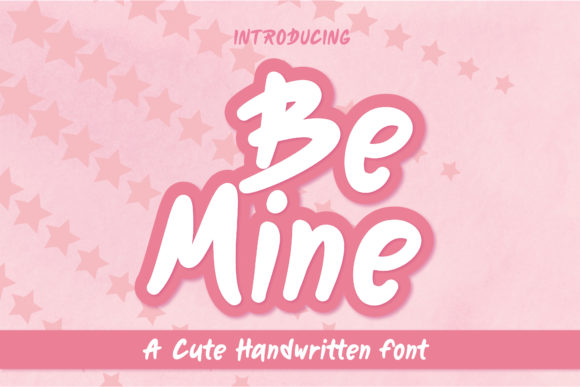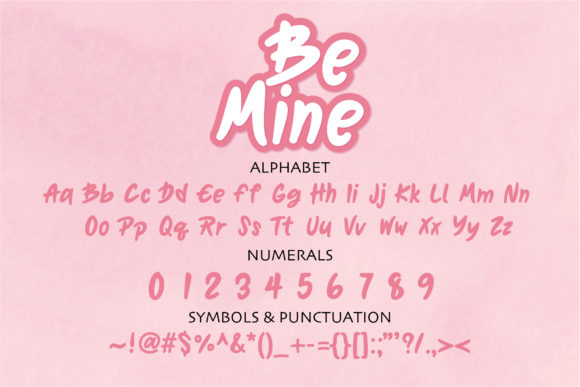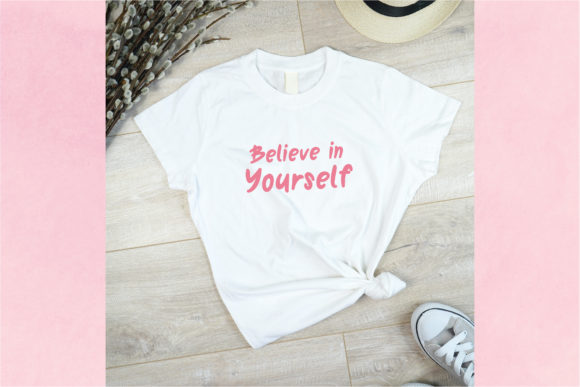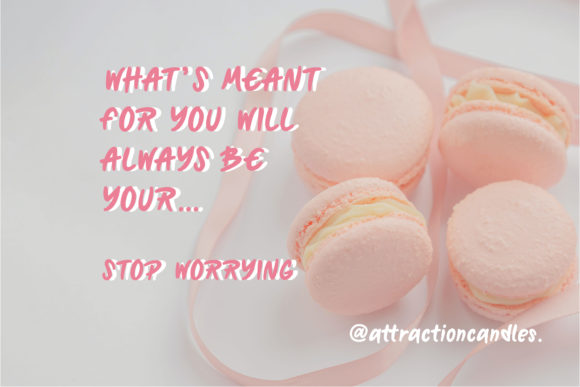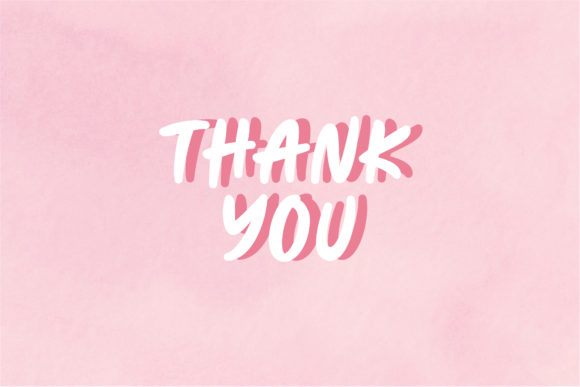
Be Mine Font
About Be Mine Font
Be Mine is a casual handwritten font. Its natural and unique style makes it incredibly fitting to a large pool of designs. It looks great on quotes, greeting cards, logos, business cards, and every other design which needs a handwritten touch.